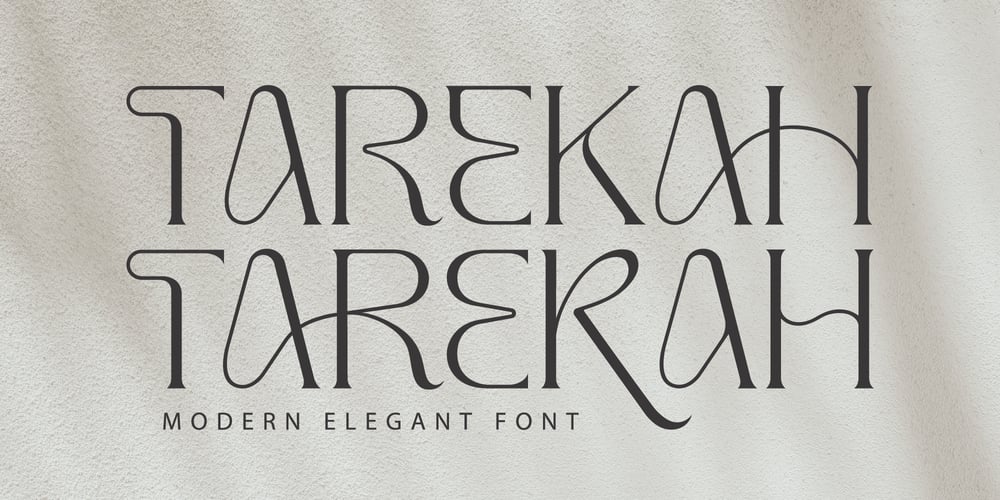
Tarekah Font Family was designed by Dede Nugraha and published by Denustudio. Tarekah contains 2 styles and family package options. Tarekah | Modern Serif Font, from Denustudios, suitable for any projects such as: logos, branding projects, homeware designs, product packaging, mugs, quotes, posters, shopping bags, t-shirts, book covers, name card, invitation cards, greeting cards, label, photography, watermark, special events, and all your other lovely projects that need a beautiful display serif taste. ===============================================================What’s Included : Regular and Italic Web Font Standard glyphs Alternate and Ligature Works on PC & Mac Simple installations Accessible in the Adobe Illustrator, Adobe Photoshop, Adobe InDesign, even work on Microsoft Word and Other Software. PUA Encoded Characters – Fully accessible without additional design software. Fonts include multilingual support